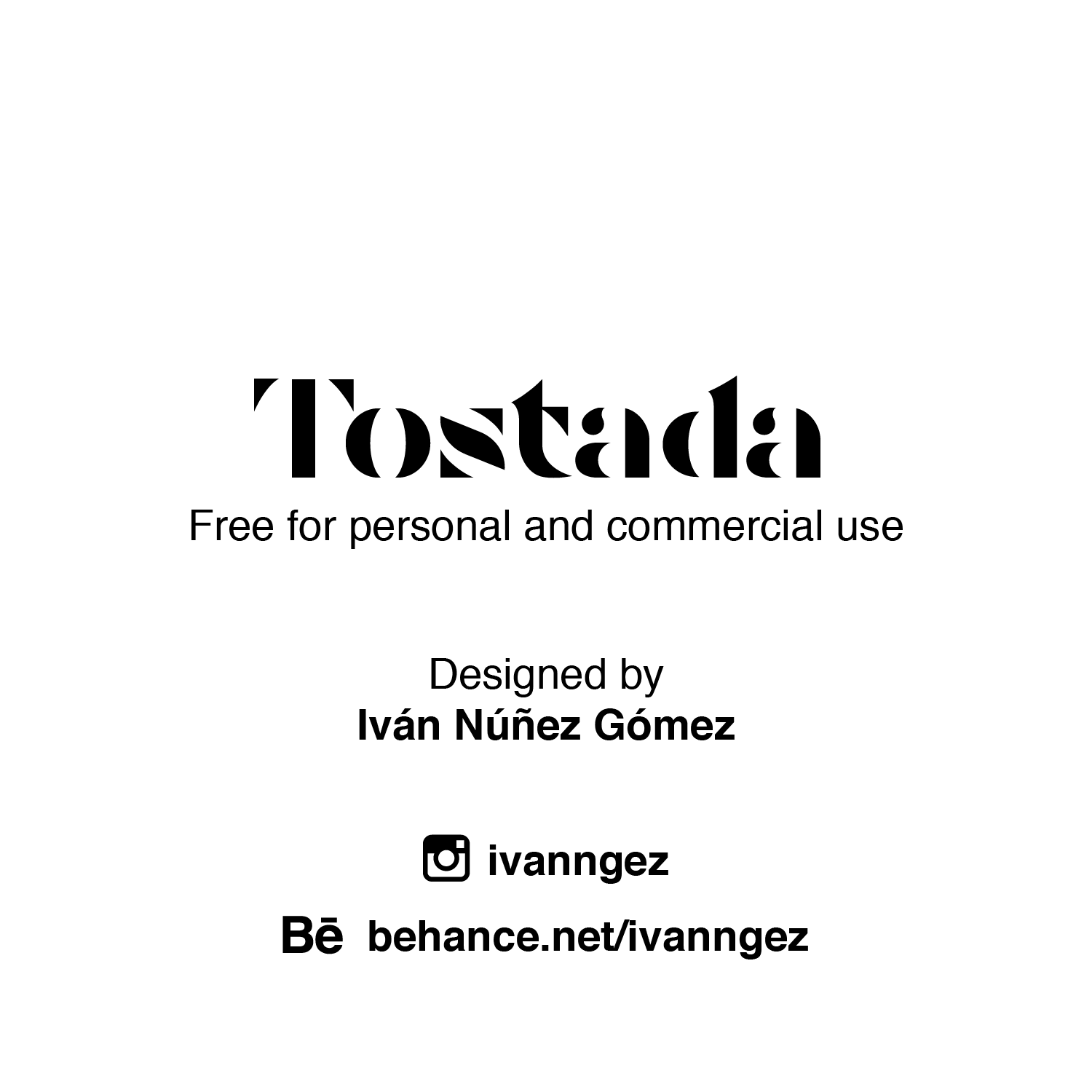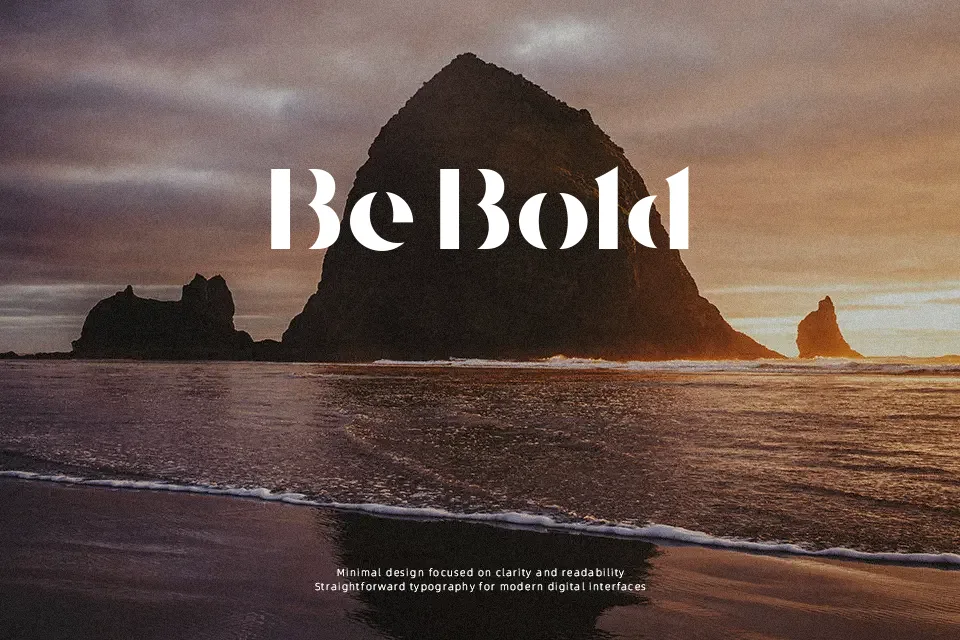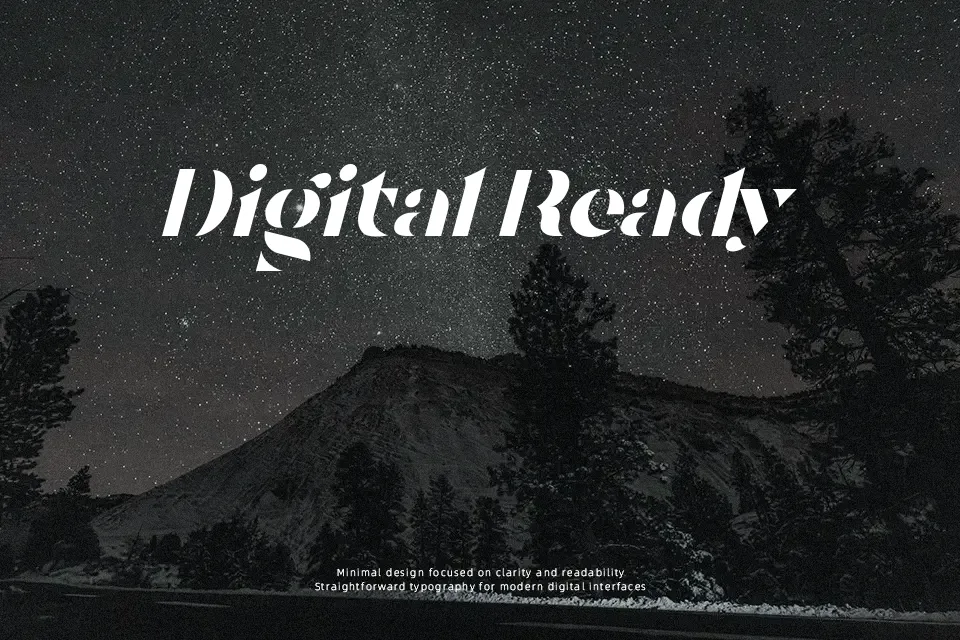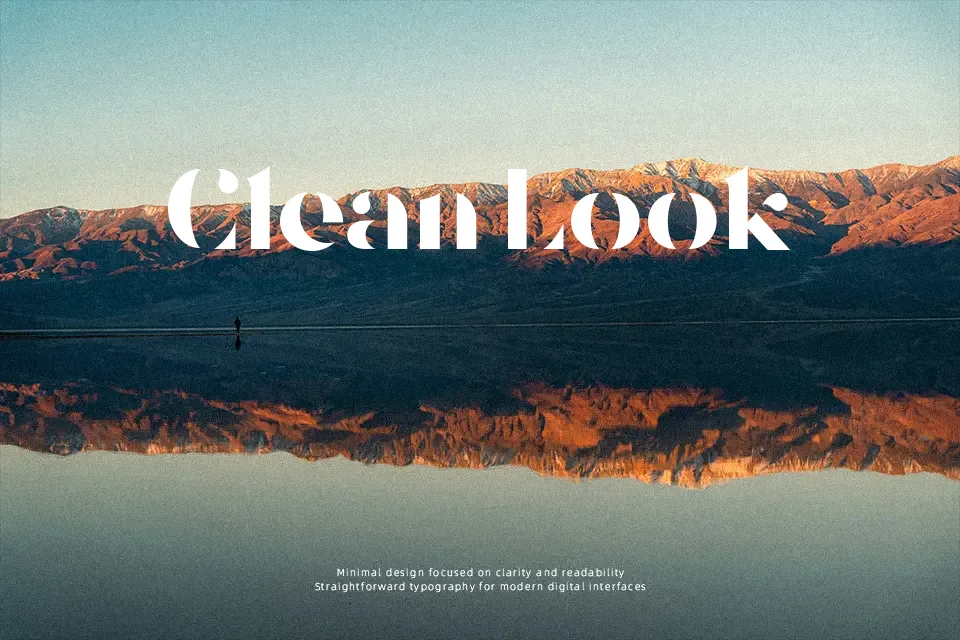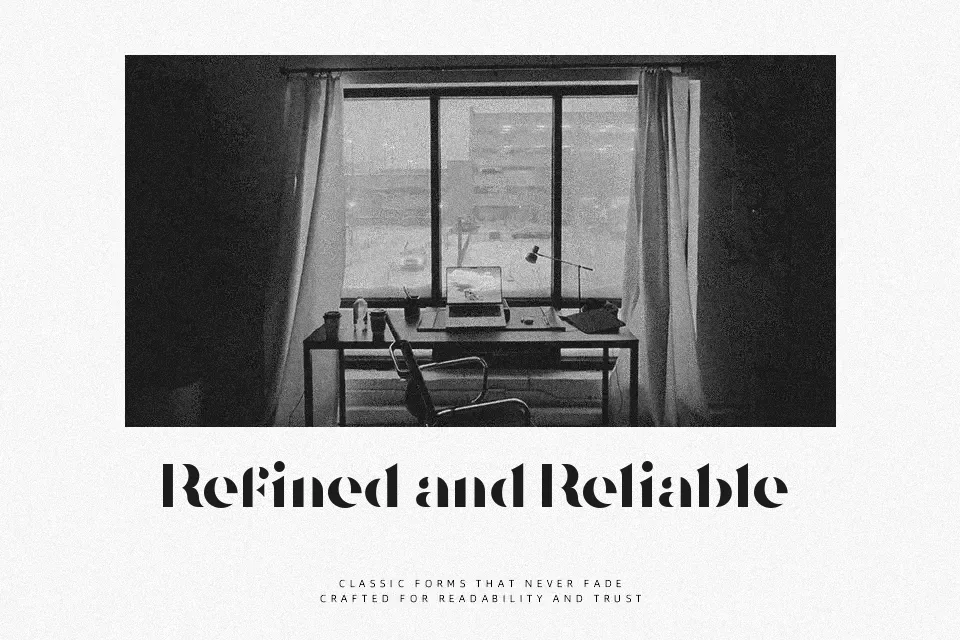
Tostada Font
Defined by pronounced stencil apertures and heavy vertical stems, Tostada Font exhibits a commanding presence grounded in classic serif architecture. The letterforms incorporate wide proportions, stark thick-to-thin stroke transitions, and horizontal bridges that interrupt the primary stems. Character spacing is relatively tight yet balanced, preserving visual cohesion across title settings. The design excels in large-scale applications such as festival posters, retro branding systems, and merchandise graphics where dramatic silhouette definition is essential. Because the segmented strokes and hairline horizontal connectors deteriorate rapidly at small optical sizes, the typeface is less suitable for continuous body text or compact interface labels.
Best For: vintage product packaging, music festival posters, apparel graphics
Not Ideal For: long paragraph text, small interface labels, dense editorial layouts
Perfect for advertising, headline, and logo, with a bold and display style.